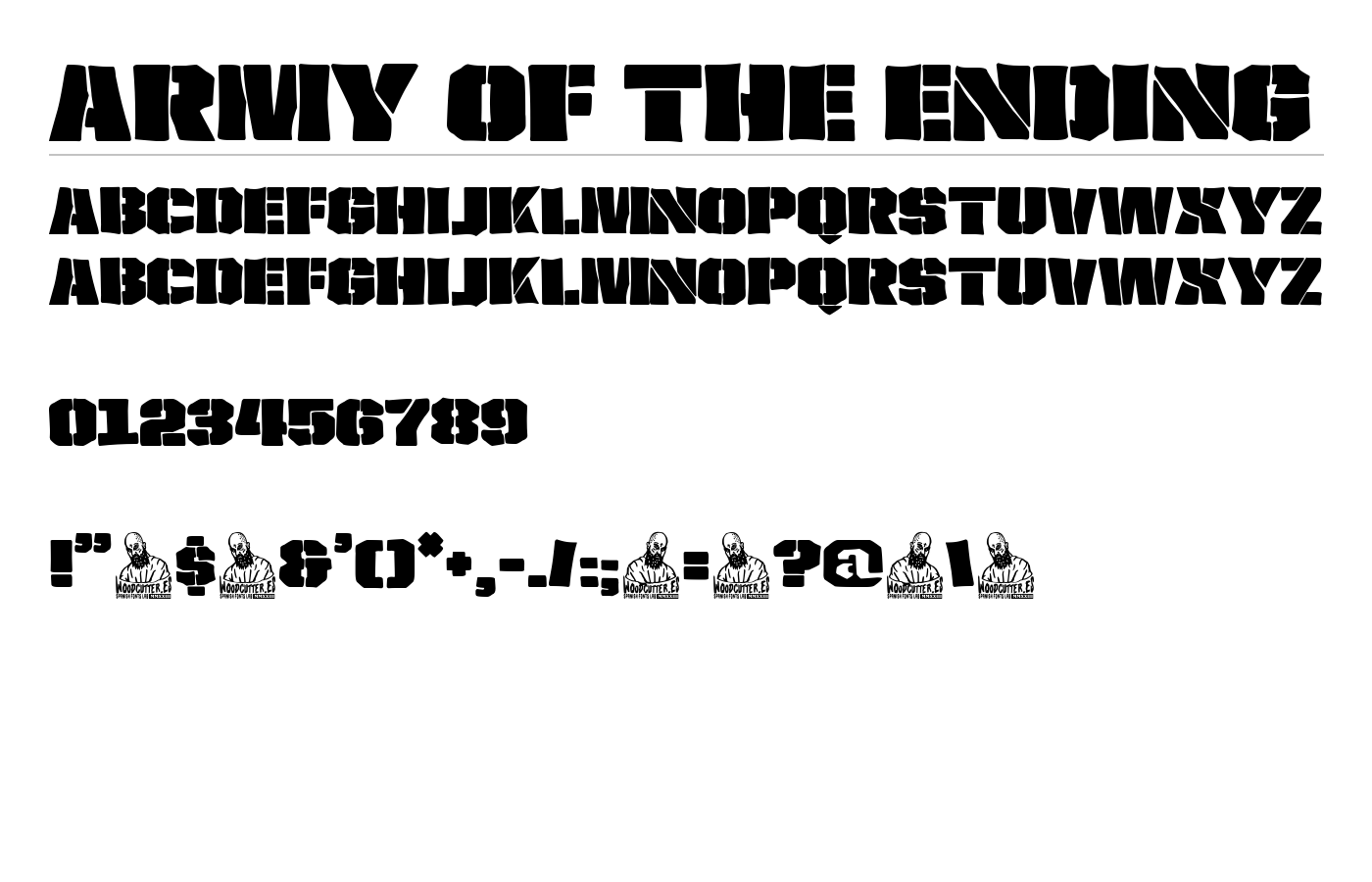
Army of the Ending is a bold, condensed slab serif font with a rugged, military-inspired look. Its heavy, blocky letters feature irregular, stencil-like cutouts, giving it a strong, commanding presence ideal for creating impactful headlines or branding with a tough, industrial vibe. This font works great for posters, logos, and packaging where a bold, attention-grabbing style is needed.
Army of the Ending Font
About Army of the Ending Font